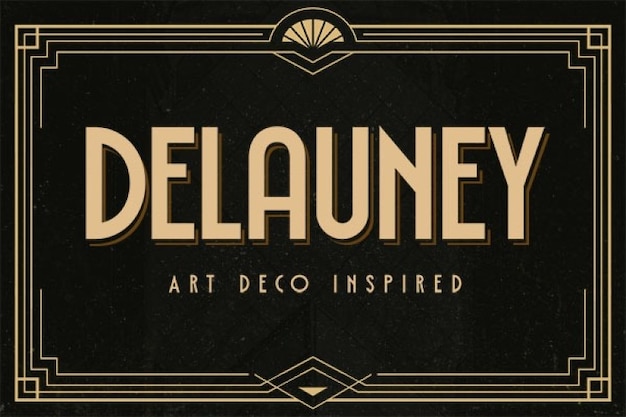
Delauney Font
This Delauney font drifts away from mediocrity thanks to its luxurious style inspired in art decó. This linear typeface is characterized by sleek, harmonious and uncomplicated non-serif strokes. It's a great choice for display formats: headlines, titles, labels, editorials and many more. It's specially suitable for liquor, jewelry and coffee corporate material. Download it now from Freepik!
Delauney Regular (400)
Delauney Shadow (400)
Delauney Catchwords (400)